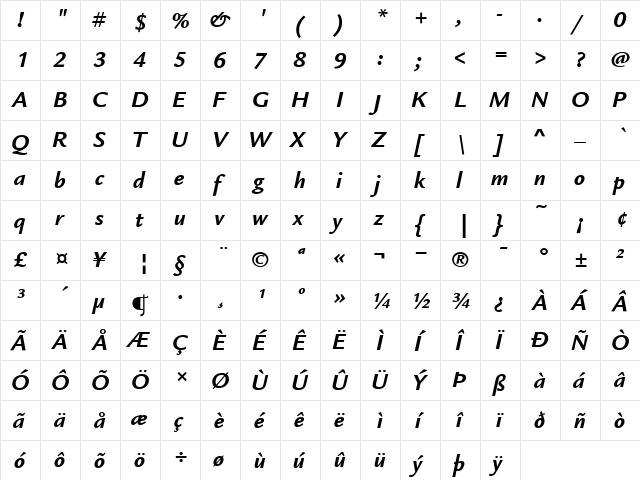
ITCLegacySans BoldItalic
Design Context for ITCLegacySans Typeface
ITCLegacySans is a composed and adaptable typeface that performs quietly and consistently across a wide range of design contexts. The slanted form adds forward momentum and visual energy. Its bold stroke weight gives it real presence on the page.